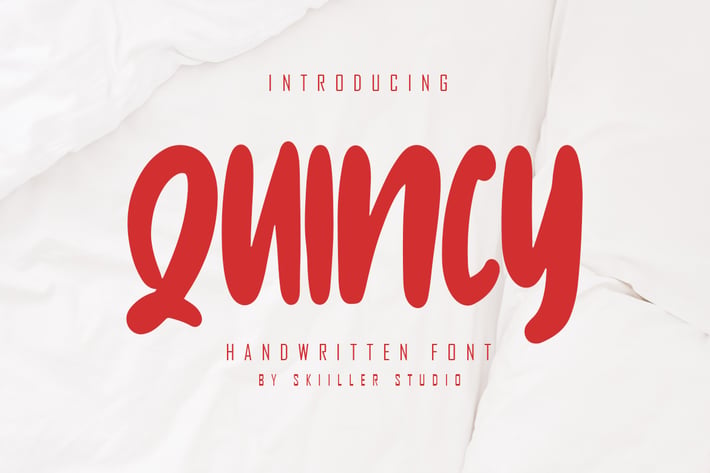
Quincy - Handwritten Font
Quincy is a beautiful love font suitable for business or commercial use to support your promotions such as designs, banners, flyers, clothes and much more